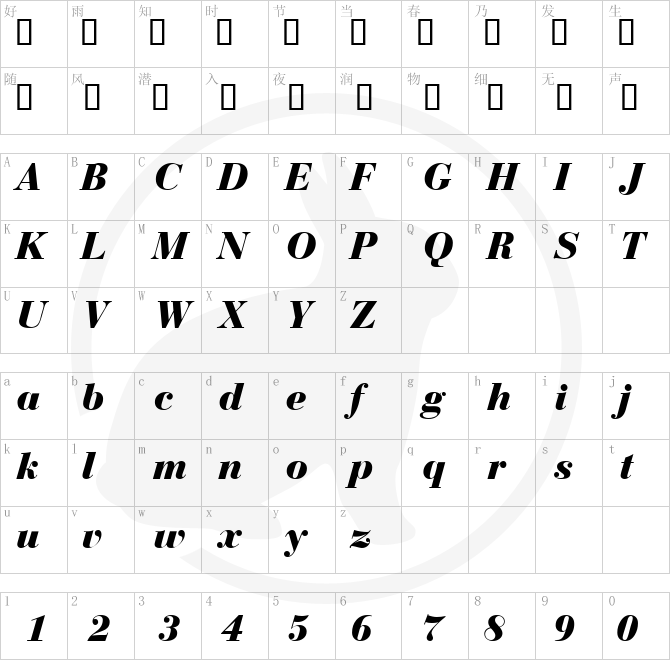
- Font Name:Babenhausen
Babenhausen-BoldItalic.ttf is a very beautiful artistic font, Babenhausen-BoldItalic.ttf is widely used in the design and printing of various books and pictures,Babenhausen-BoldItalic.ttf has a strong visual impact,Babenhausen-BoldItalic.ttf is a commonly used font in newspapers, magazines and books, and is used in posters, e-commerce Poster design, store design, logo design, font design and other fields.Babenhausen-BoldItalic.